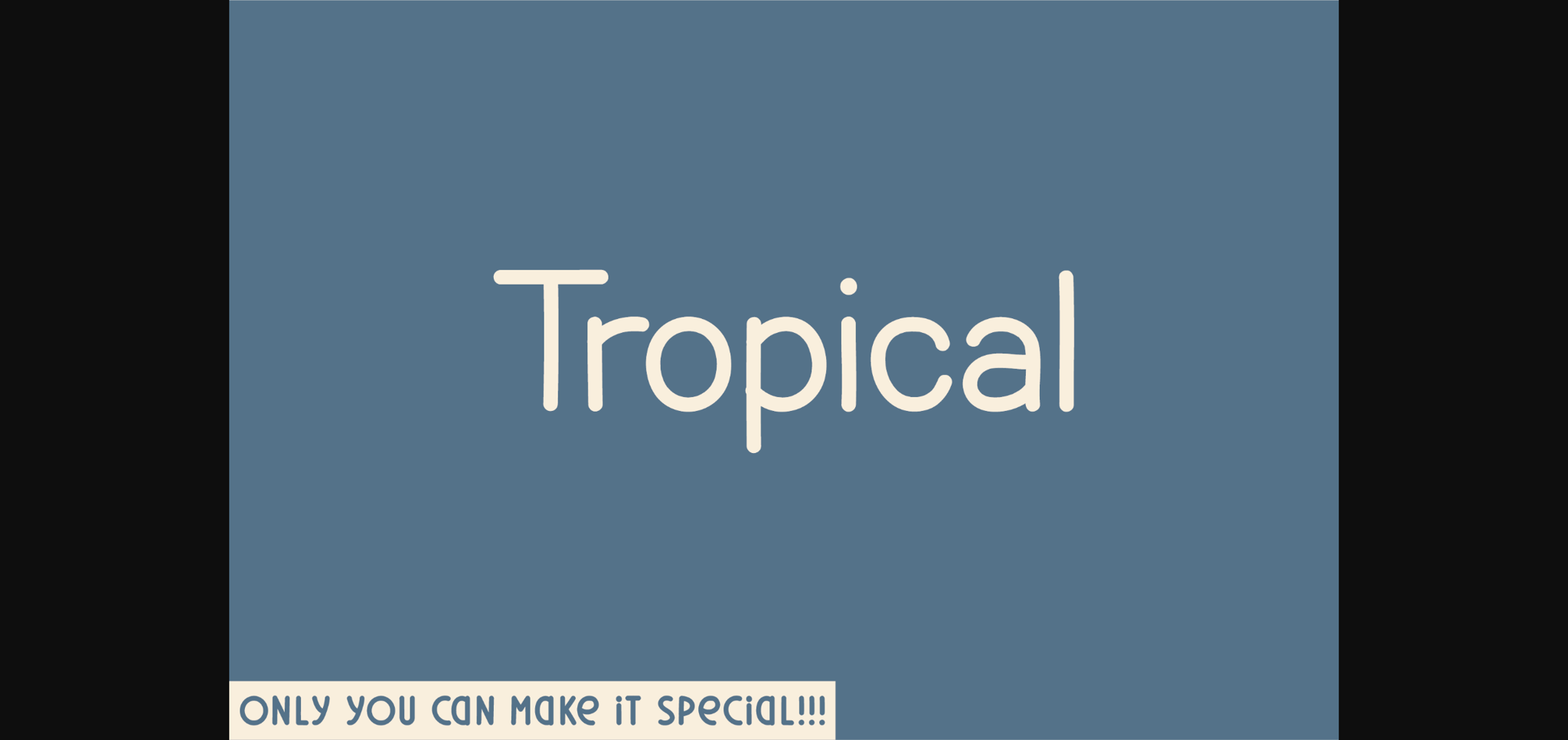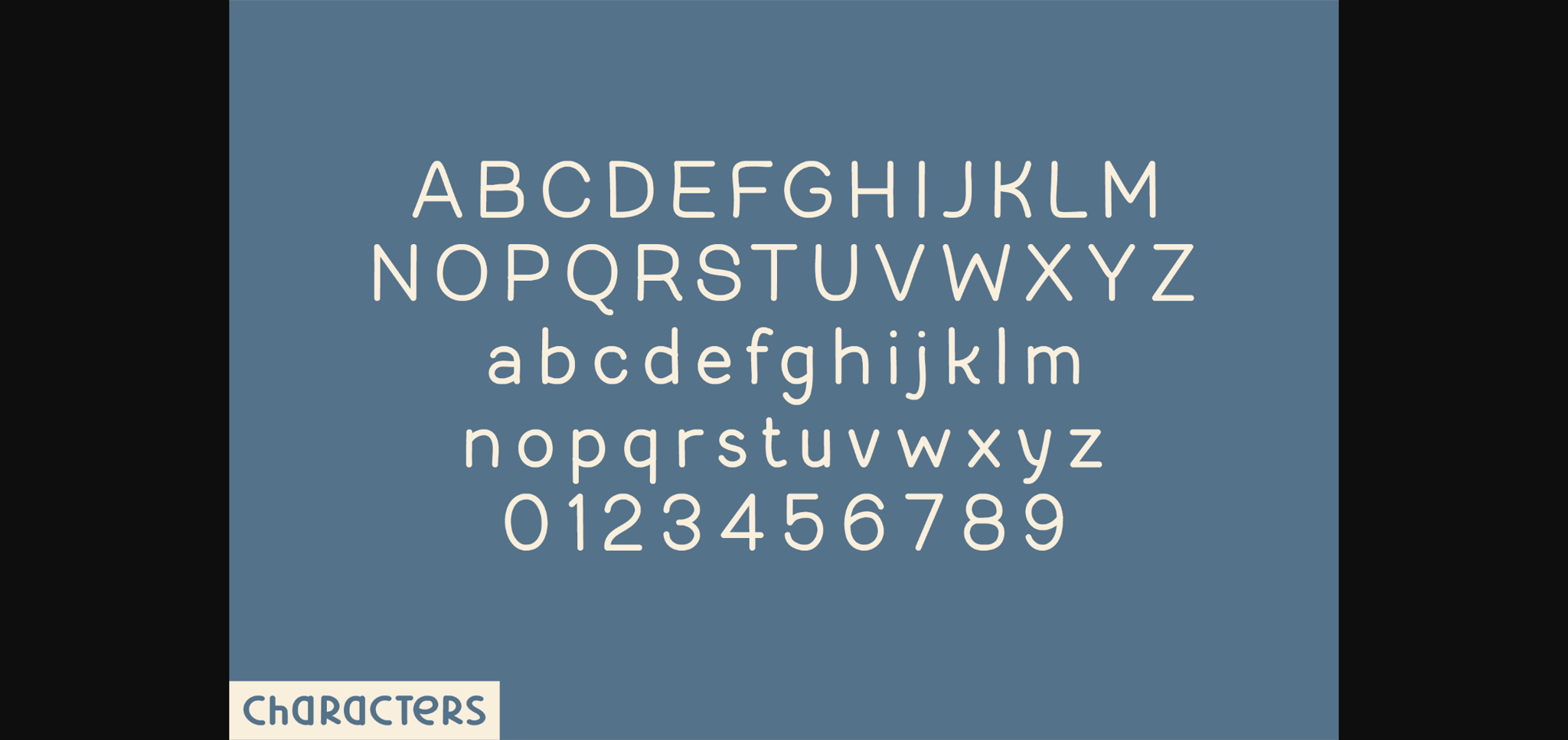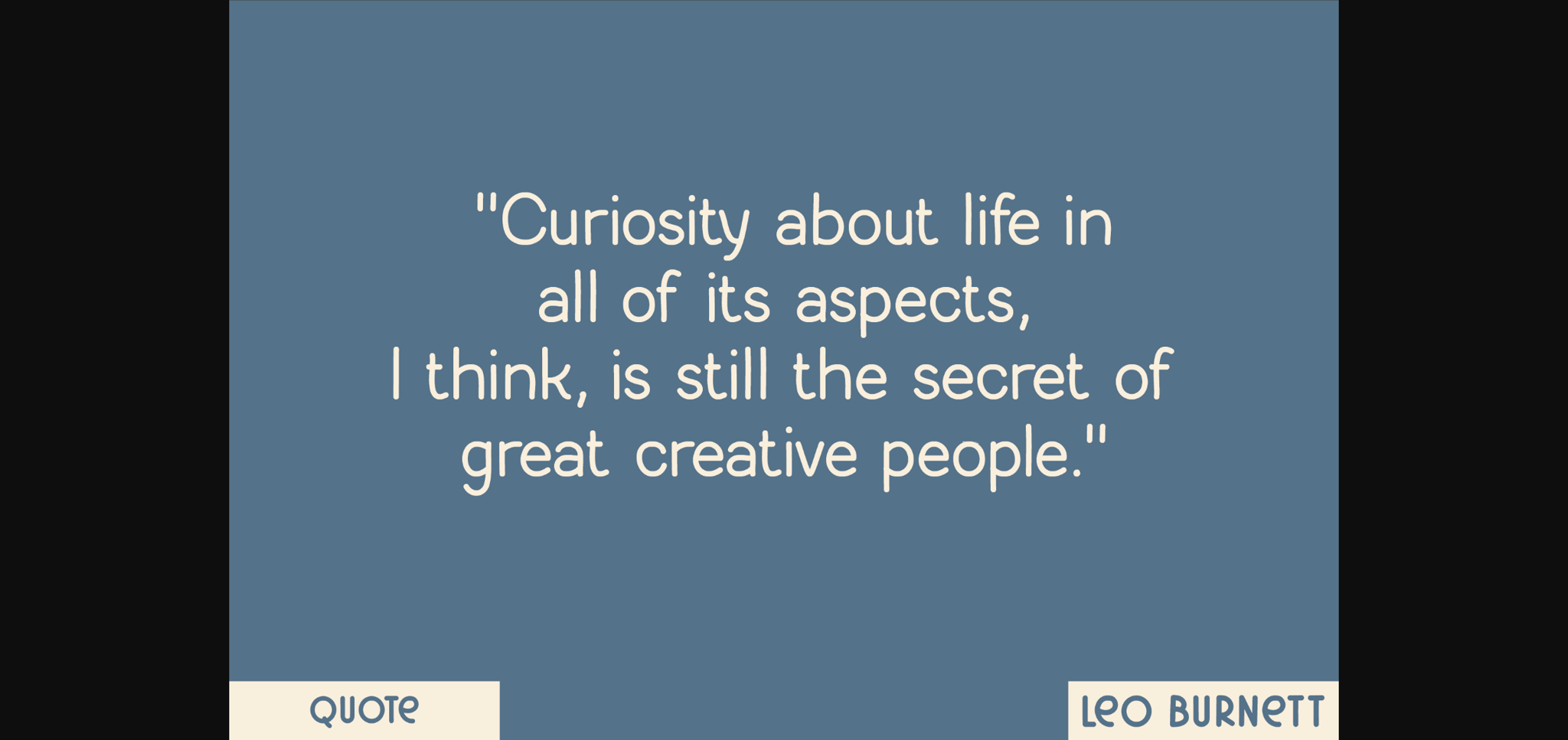
About Tropical Font
Tropical is an elegant and modern sans serif font. This minimalist and clean vibe can easily apply to your favorite designs such as book covers, magazines, social media posts, invitations, and so much more!